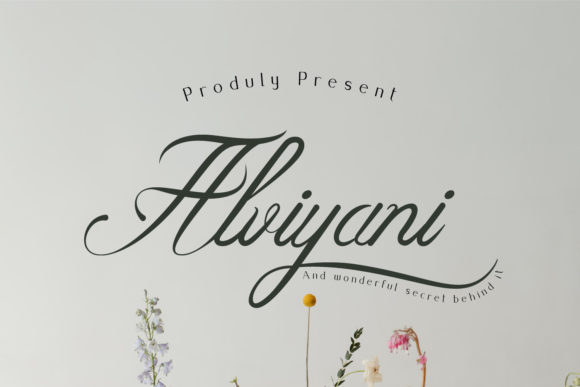
Journey into the world of exquisite script fonts and unveil the Alviyani Font, a masterpiece crafted by Creative17studio. This elegant and captivating font family will transform your digital creations into works of art. With its graceful strokes and alluring curves, Alviyani is the perfect choice for adding a touch of sophistication and charm to your designs.
Immerse yourself in the allure of Alviyani's meticulously designed characters, each meticulously crafted to evoke a sense of luxury and timeless beauty. Whether you're crafting logos, invitations, branding materials, or social media posts, Alviyani will elevate your projects to new heights of visual appeal.
With the Alviyani Font at your fingertips, you'll discover a world of creative possibilities. Its versatility knows no bounds, seamlessly adapting to a myriad of design styles and themes. From classic and timeless to modern and edgy, Alviyani effortlessly complements your vision, allowing you to express your unique artistic flair.
Designed with the utmost care and attention to detail, Alviyani is PUA encoded, ensuring effortless access to its comprehensive range of glyphs and ligatures. Unleash your creativity and explore the endless possibilities, adding intricate details and flourishes that bring your designs to life.
Embrace the Alviyani Font and embark on a creative journey like no other. Let its elegance and charm captivate your audience, leaving an unforgettable impression that sets your work apart. Elevate your designs, express your individuality, and unlock the true potential of your artistic endeavors with Alviyani, the font that will redefine your creative horizons.